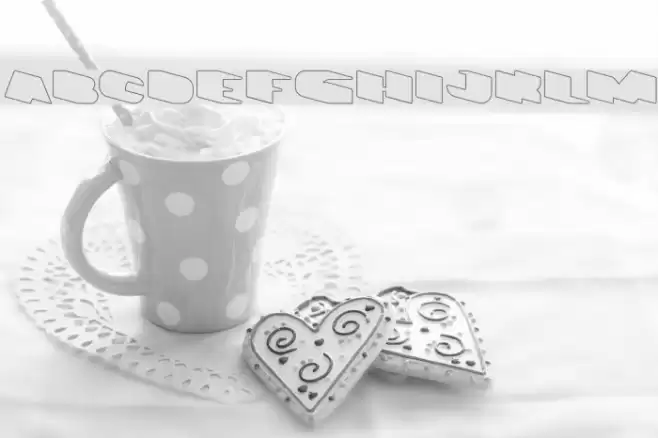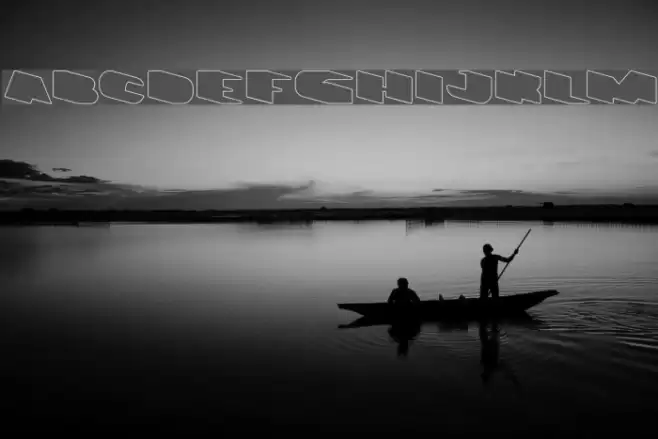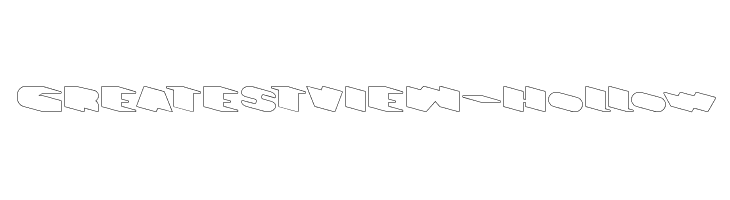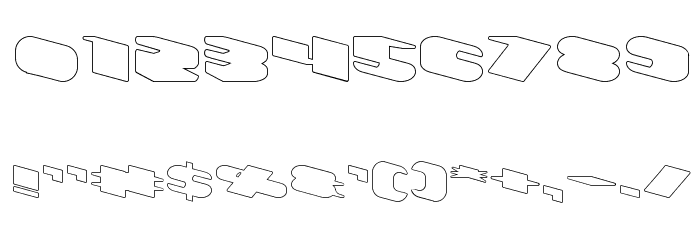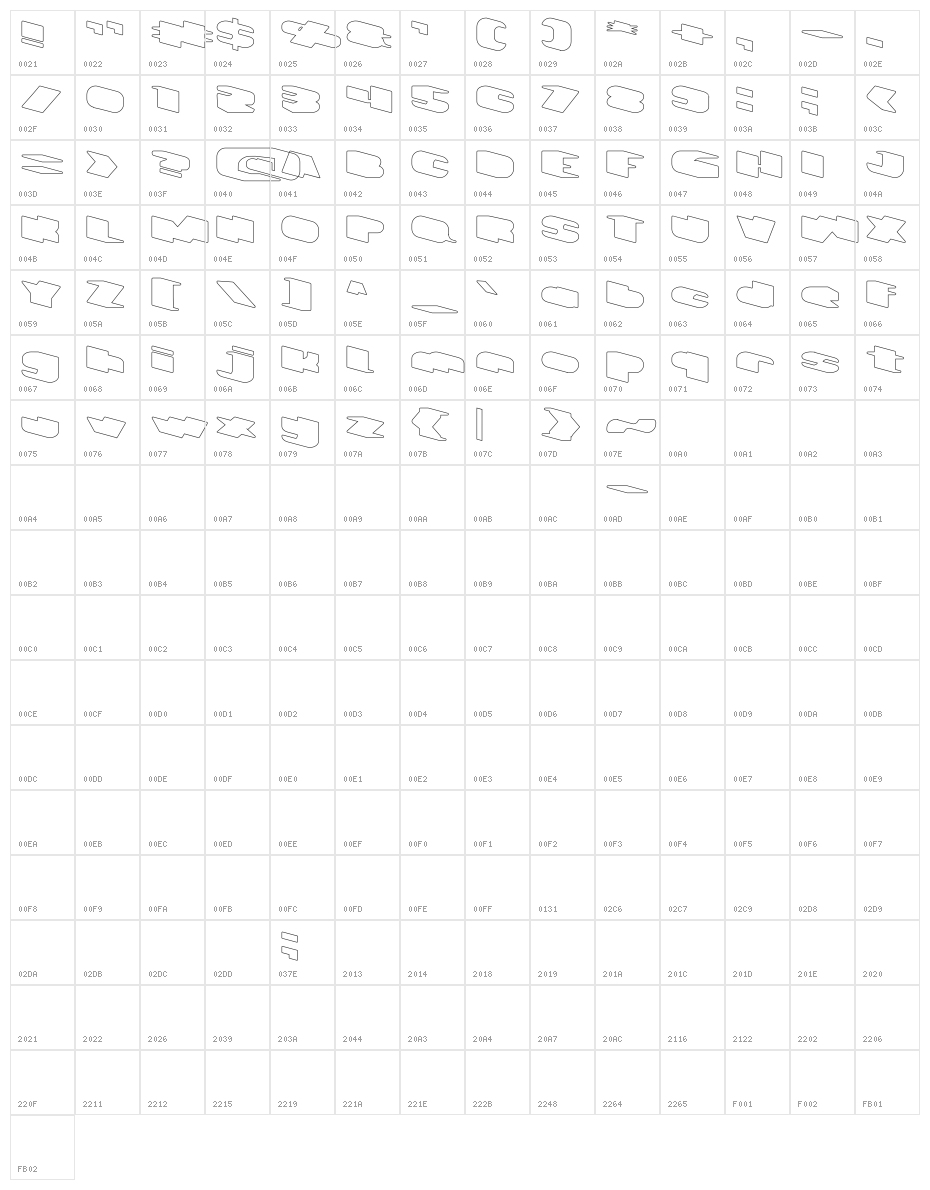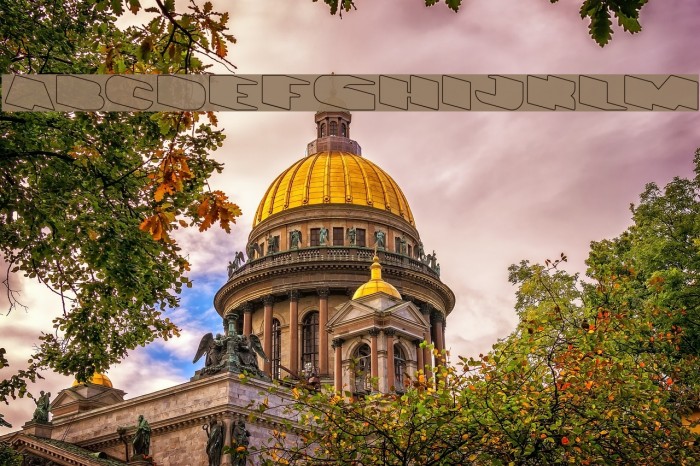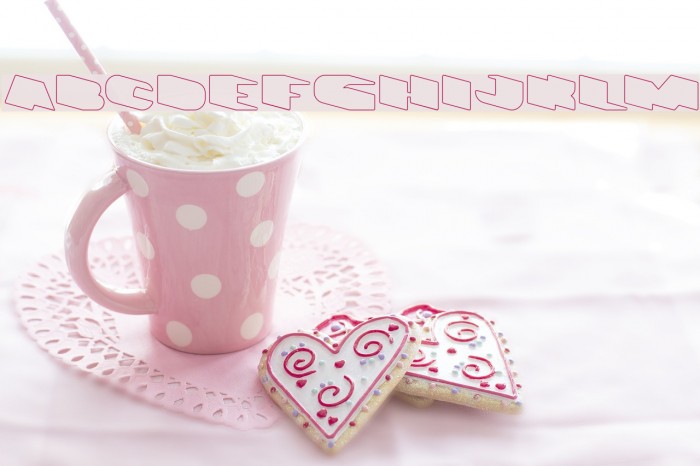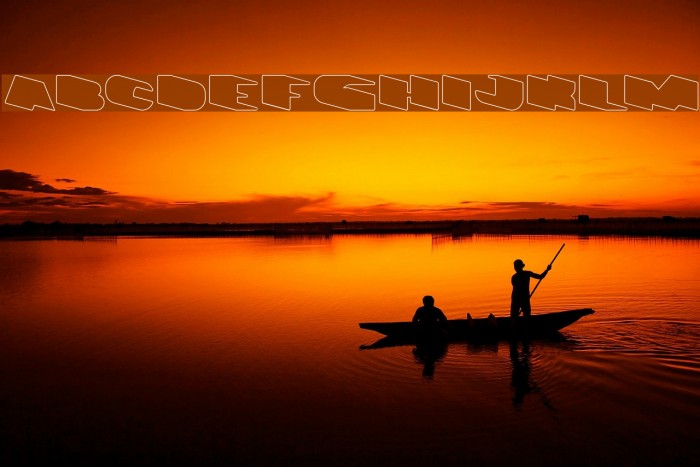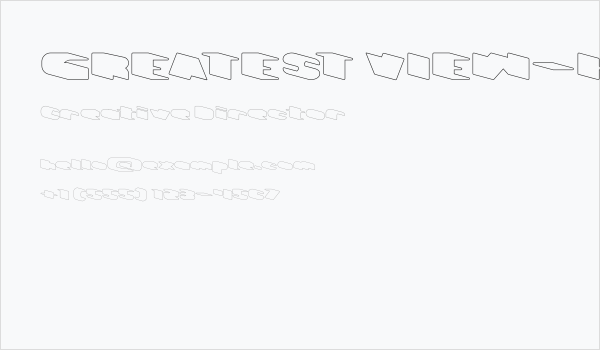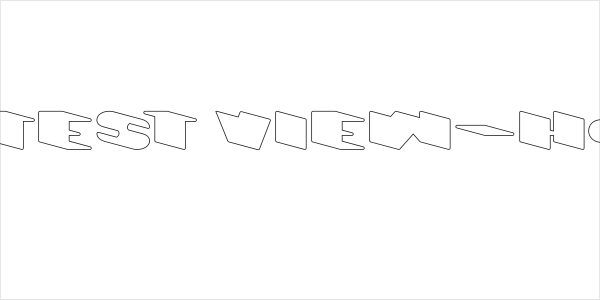
GREATEST VIEW-Hollow Font
GREATEST VIEW-Hollow Description
This font features a unique hollow design with a playful and geometric style. Each character is outlined, creating a bold yet airy appearance. The letters have a distinct angularity, with sharp edges and a modern aesthetic. The uppercase and lowercase letters maintain a consistent style, while the numerals and special characters complement the overall look. This font stands out with its creative and unconventional form, making it ideal for eye-catching designs.
A hollow, geometric font with sharp, angular outlines from Uncategorized fonts.
- Proposed Projects: Ideal for posters, logos, and creative branding projects where a modern and playful touch is desired.